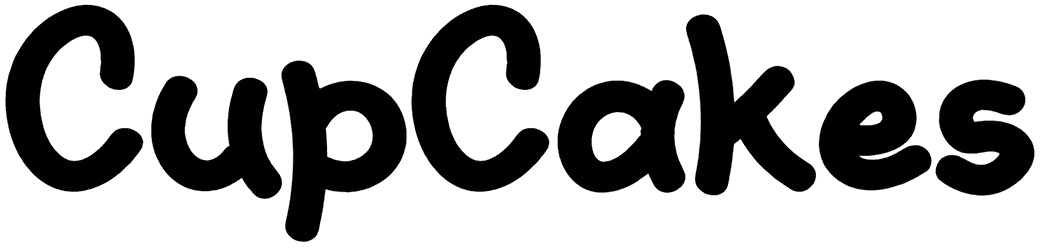
CupCakes Font
If you want to steer clear of overusing duplicate and repetitive handwritten fonts, we would like to offer you a beautiful cartoon font such as Cupcake that revolutionizes your graphic content, including illustrations, digital banners, street posters, and wood engravings by adding a sense of softness, eeriness, delicacy, or grunge.